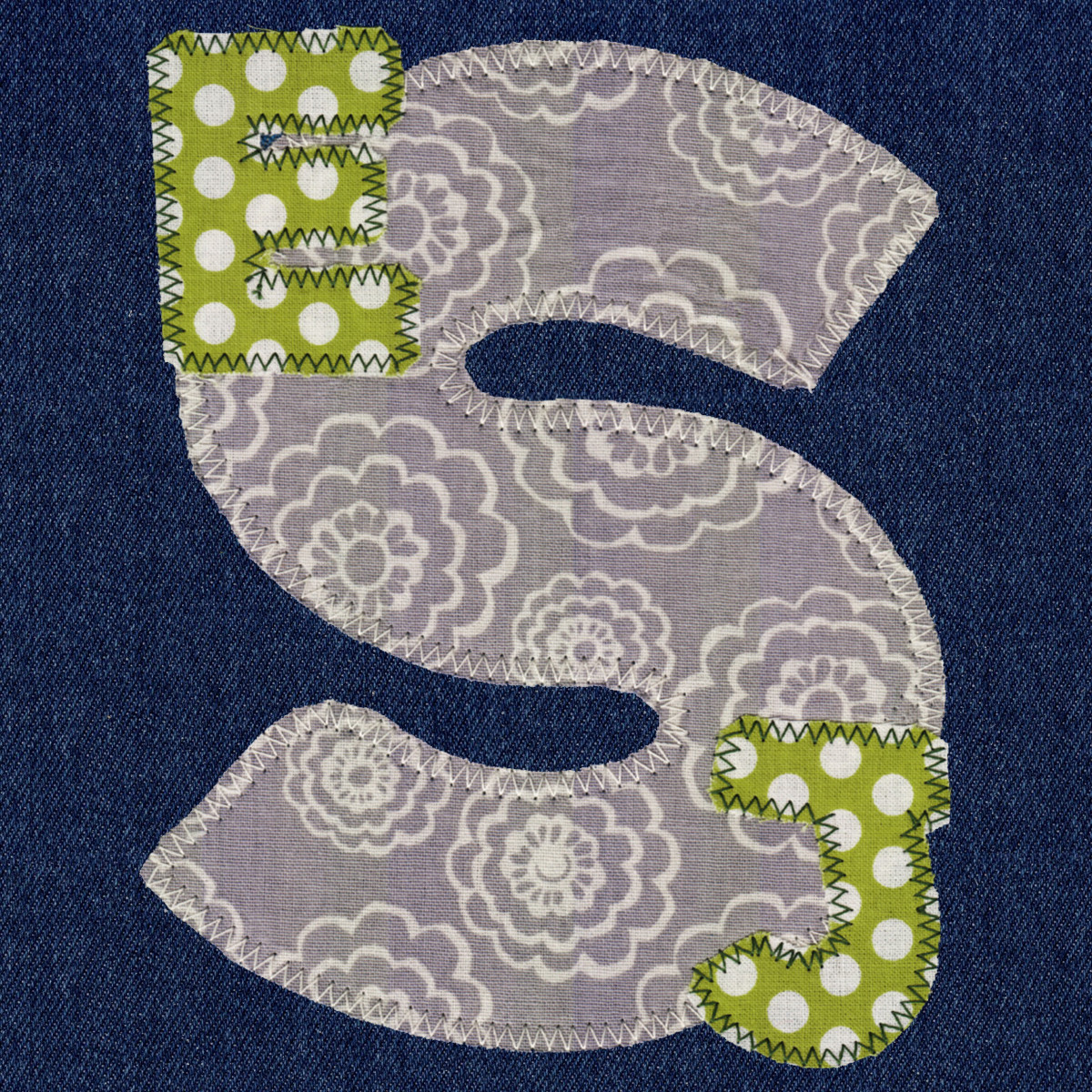
652 Terrific Zig Zag Applique Font
652 Terrific Zig Zag Applique Font comes in 2", 3", 4", 5", 6", 7" and 8" heights based on the capital "A". All sizes are included in the purchase price. All Characters are finished in a One-Stitch-Pass Zig Zag Applique process (see FAQ 16 for details and be sure to download the Zig Zag Applique instruction with your files). Included uppercase letters, lowercase letters, numbers and six punctuation marks.